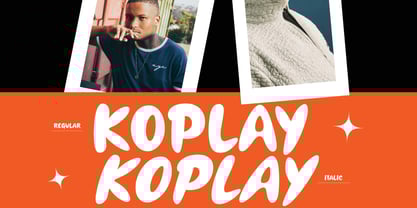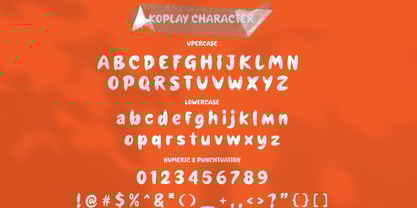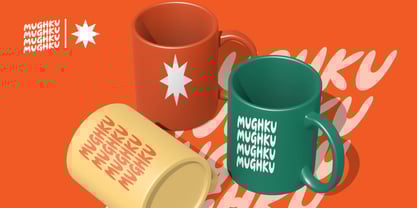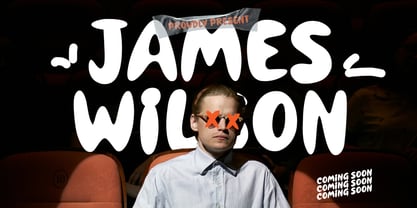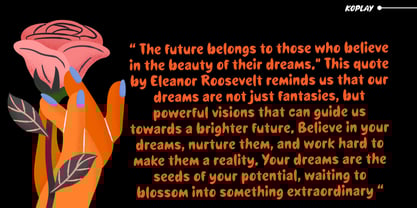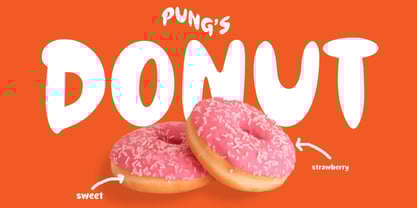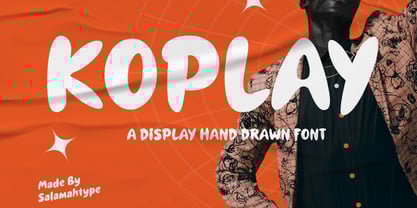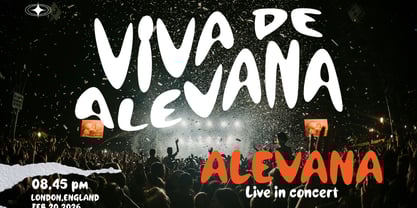
Koplay
by Salamahtype
The Koplay Font Family was designed by Aswangga Sadike and published by Salamahtype. Koplay contains 2 styles and family package options.
KOPLAY is a bold and playful font that brings fun and energy to any design. Available in both regular and italic versions, it offers versatility for various creative projects. Its charming and lively style makes it perfect for cute designs, urban packaging, websites, posters, and branding taglines. Whether you’re looking to create a standout logo or an eye-catching visual, KOPLAY adds a cheerful and dynamic touch to your work.